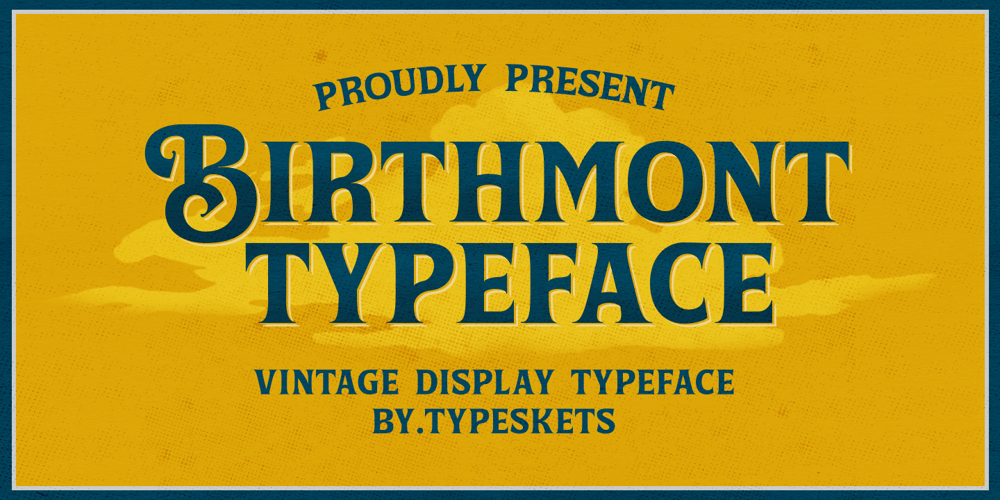
Birthmont Font Family was designed by Sahrul Hidayat and published by Typeskets. Birthmont contains 1 styles and family package options. Birthmont is a vintage display style font, capital letters with interesting combinations, very suitable for use on label designs, titles, or other vintage themed designs. a font inspired by the 80’s label designs that used it for the title and headline sections